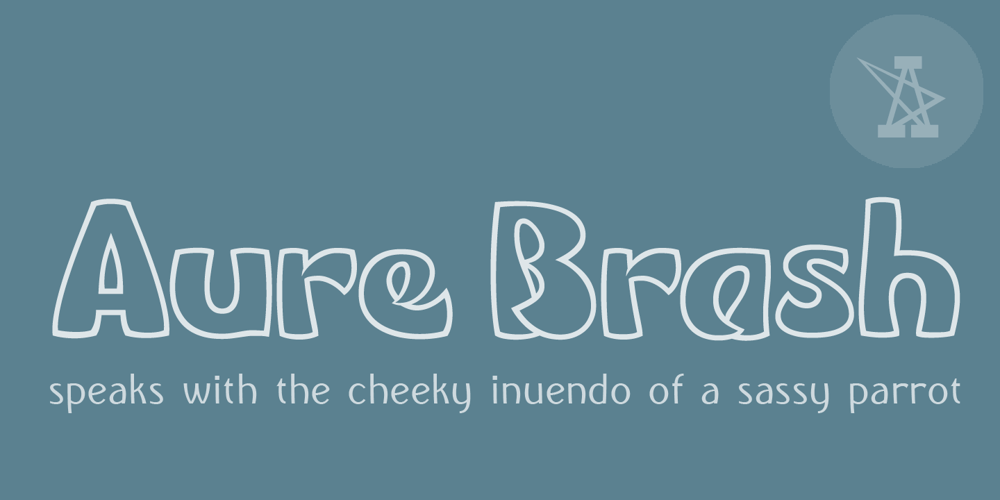
Aure Brash
Aure Brash font
Aure Brash Font Family was designed by Aurora Isaac and published by Aure Font Design. Aure Brash contains 2 styles and family package options. Aure Brash speaks with the cheeky inuendo of a sassy parrot. The quirky forms of this unique outline font engage the reader with a subtext of whimsy. Designed for its visual impact, Brash stands out as a title font and offers delightful possibilities for graphic imagery. Brash is an original design developed by Aurora Isaac. After more than a decade in development, 2018 marks the first release of the CJ and KB glyphsets. The CJ glyphset is a full text font with an extended set of lowercase and uppercase glyphs supporting a variety of European languages. Additional glyphs include standard ligatures, four variations of the ampersand, and check-mark and happy-face with their companions x-mark and grumpy-face. Numbers are available in lining and oldstyle versions, with numerators and denominators for forming fractions. Companion glyphs include Roman numerals, specialized glyphs for indicating ordinals, and a variety of mathematical symbols and operators. The CJ glyphset also includes an extended set of glyphs for typesetting Western Astrology. These glyphs are also available separately in the KB glyphset: a symbol font re-coded to allow easy keyboard access for the most commonly used glyphs. Brash is not designed for use in extended text. It shows its strength paired with strong text fonts such as Aure Jane or Aure Teddy. Used sparingly, Brash will add witty highlights to catch the reader’s eye. Give Aure Brash a trial run! You may discover a permanent place for this font family in your typographic palette. >> AureFontDesign.com